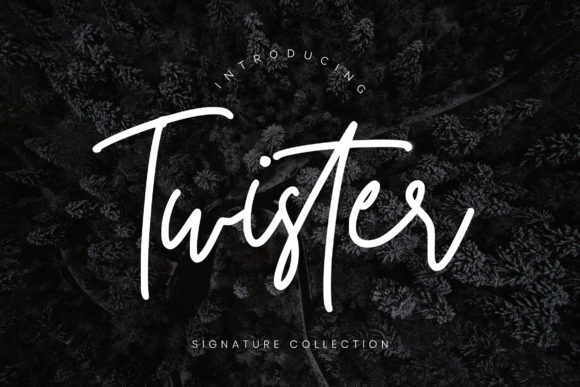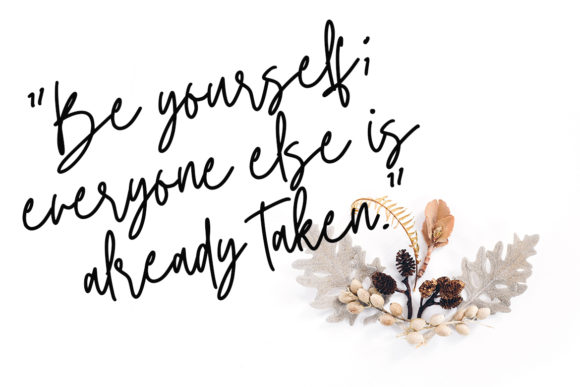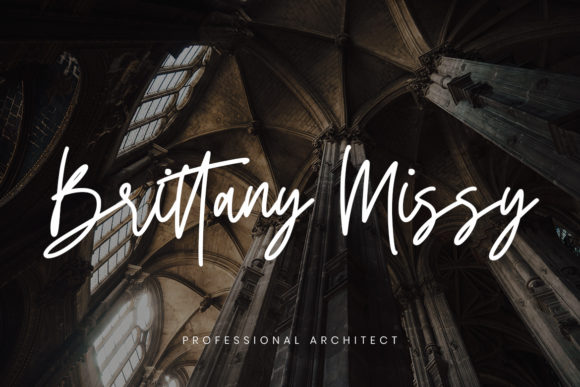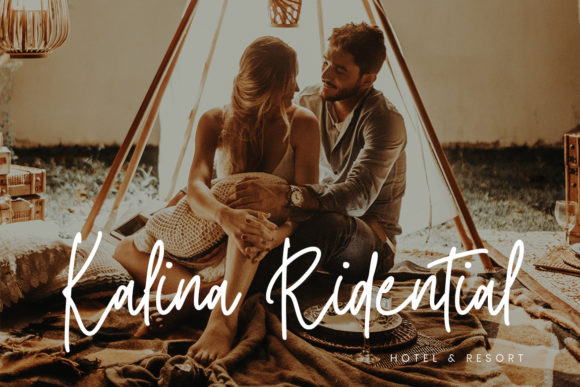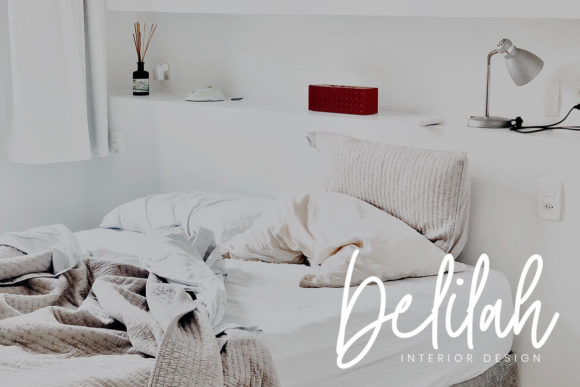
Twister Script Font
About Twister Script Font
Inspired by careful calligraphy, Twister is a beautiful and light handwritten font with a unique and authentic feel!